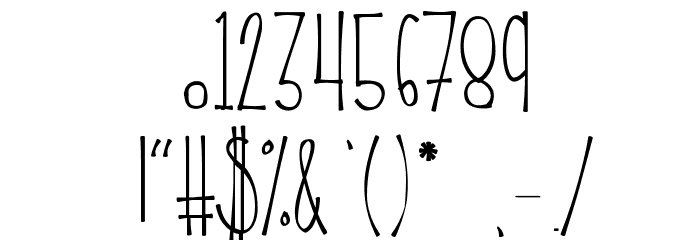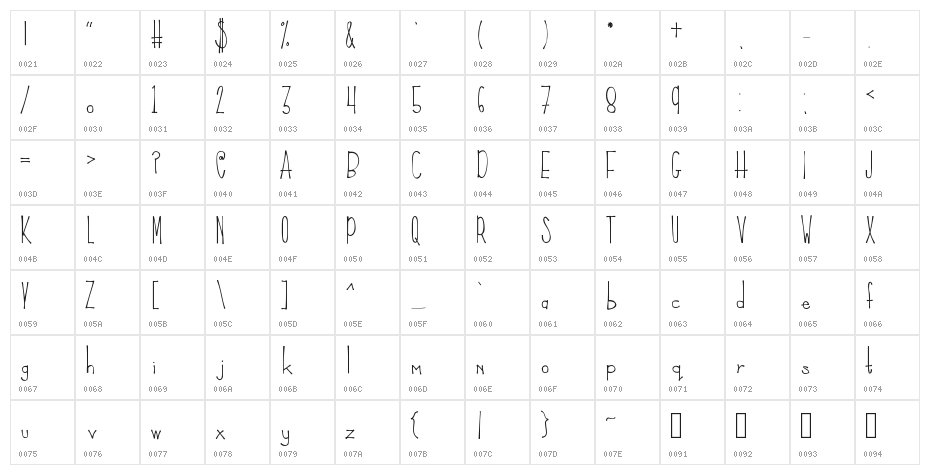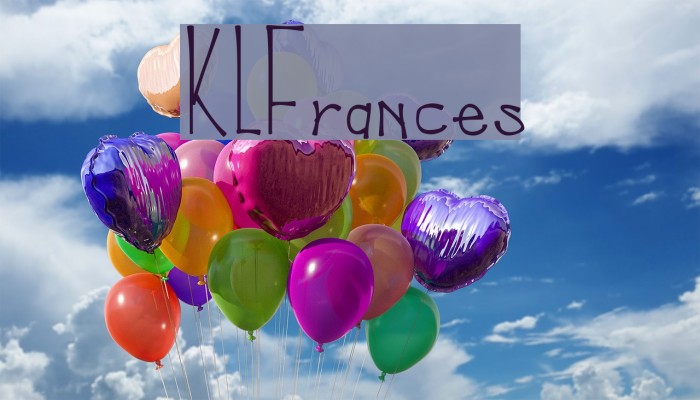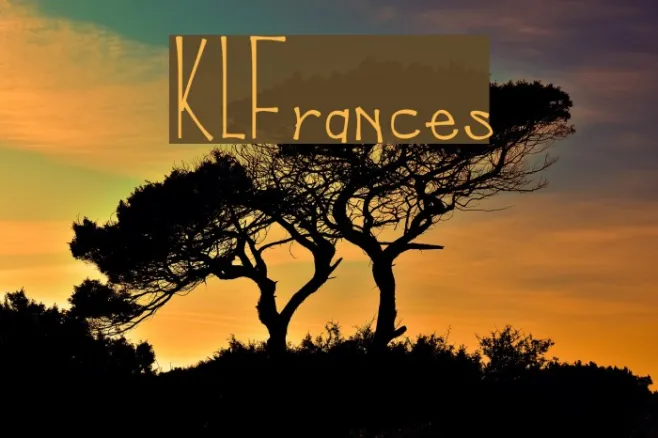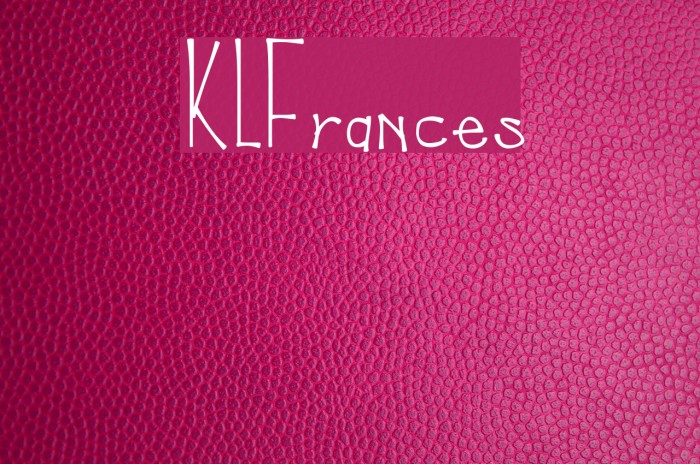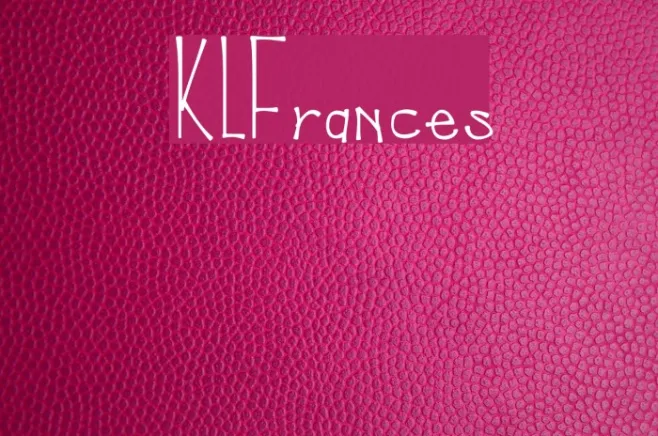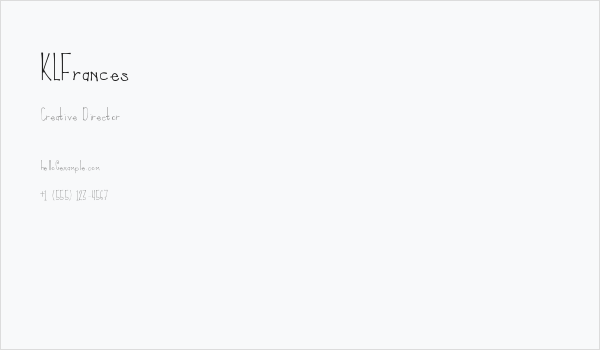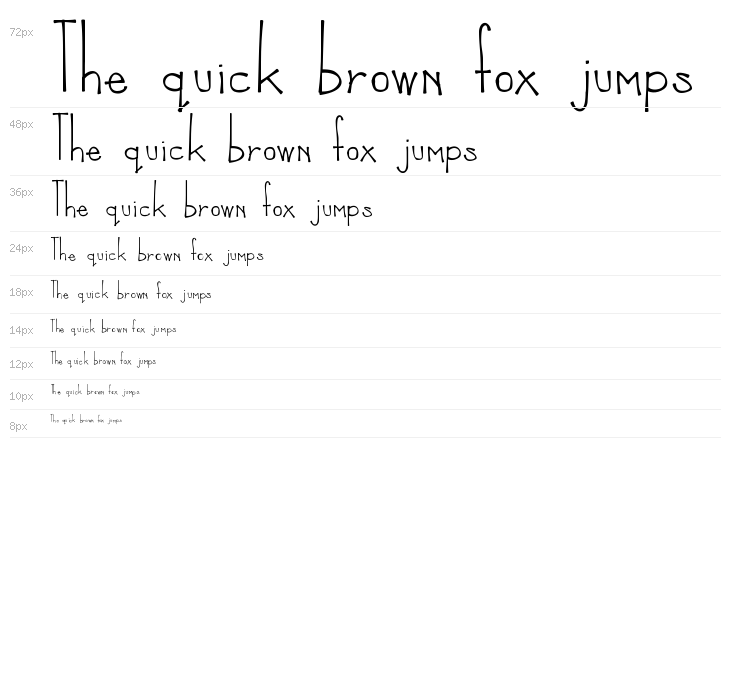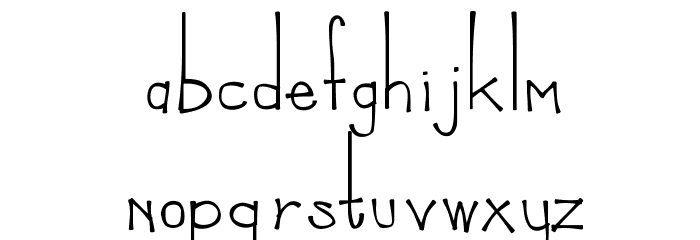
KLFrances Font
KLFrances Description
This font features a playful and whimsical style with tall, narrow characters that have a hand-drawn appearance. The uppercase letters are elongated, giving them a unique and quirky look, while the lowercase letters maintain a consistent height with slight variations in stroke width. The numbers are similarly styled, with a distinctive, casual flair. Special characters are included, maintaining the same playful aesthetic. This font is perfect for projects that require a touch of personality and creativity, such as children's books, playful branding, or artistic posters.
| Overall Style | Whimsical |
| Proposed Projects | Ideal for children's books, creative branding, artistic posters, and playful invitations. |